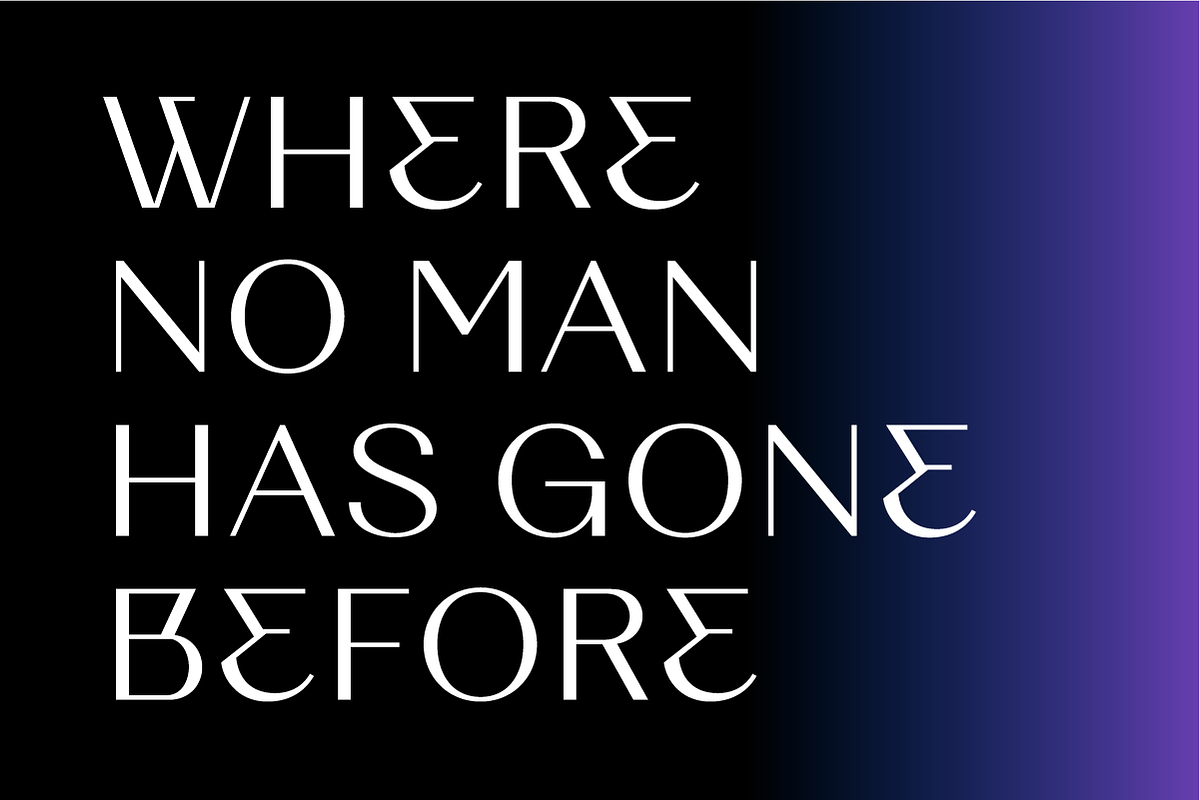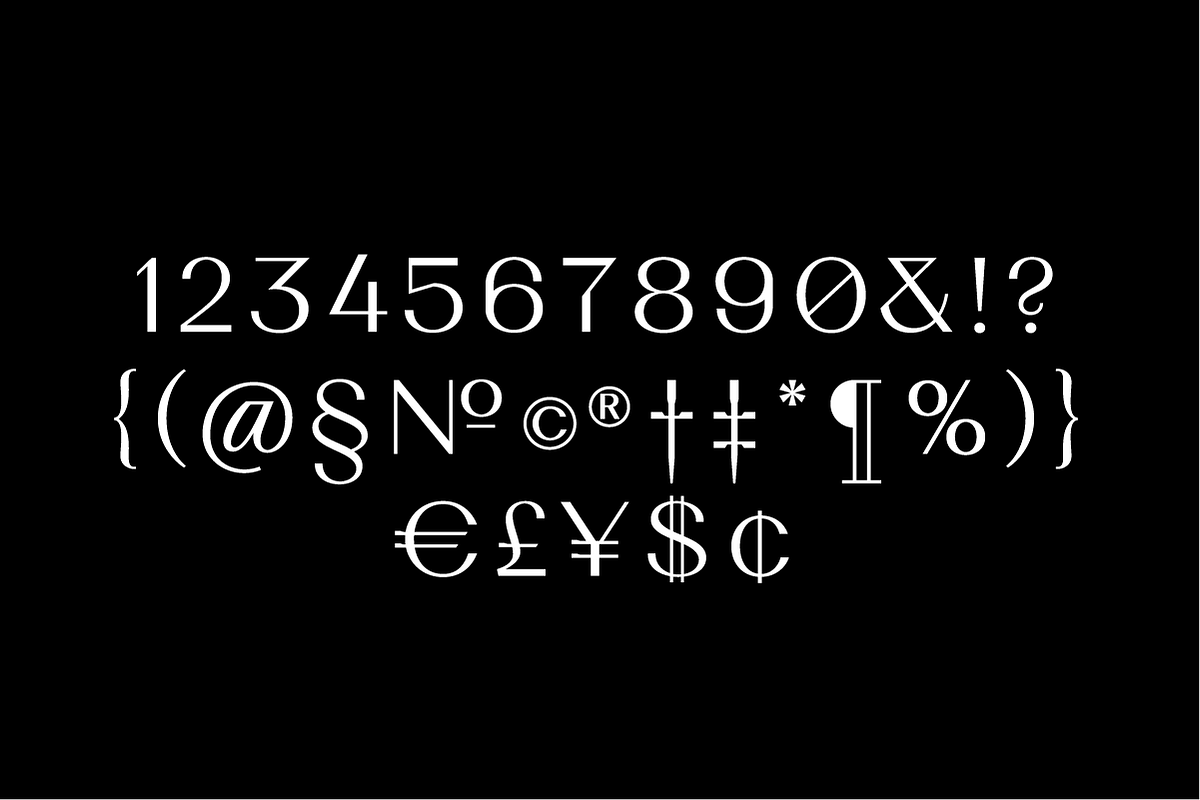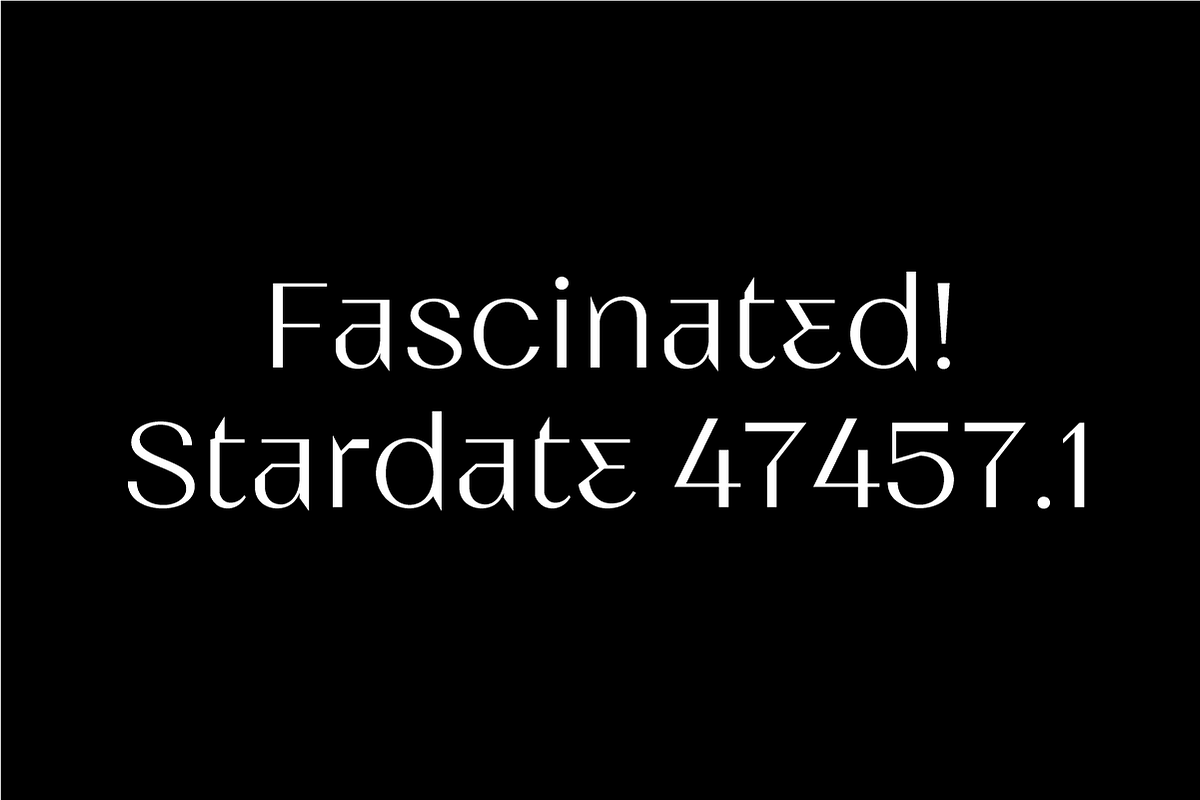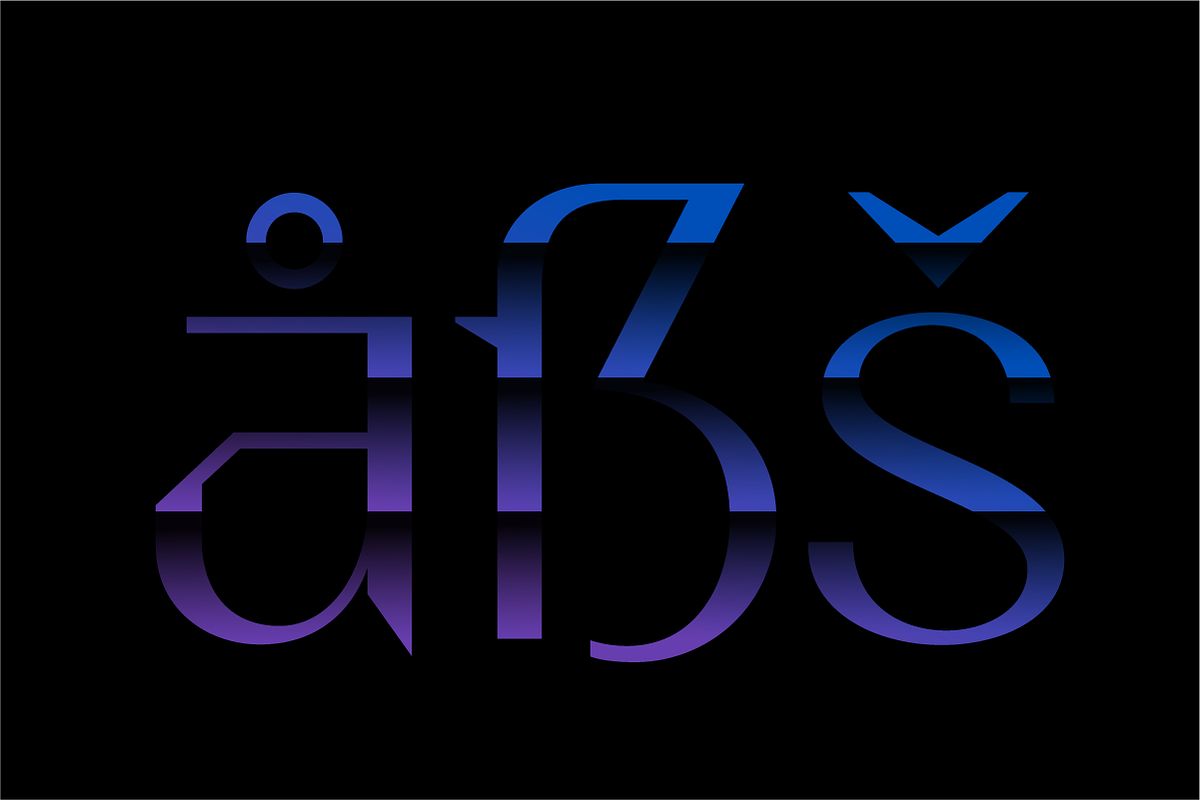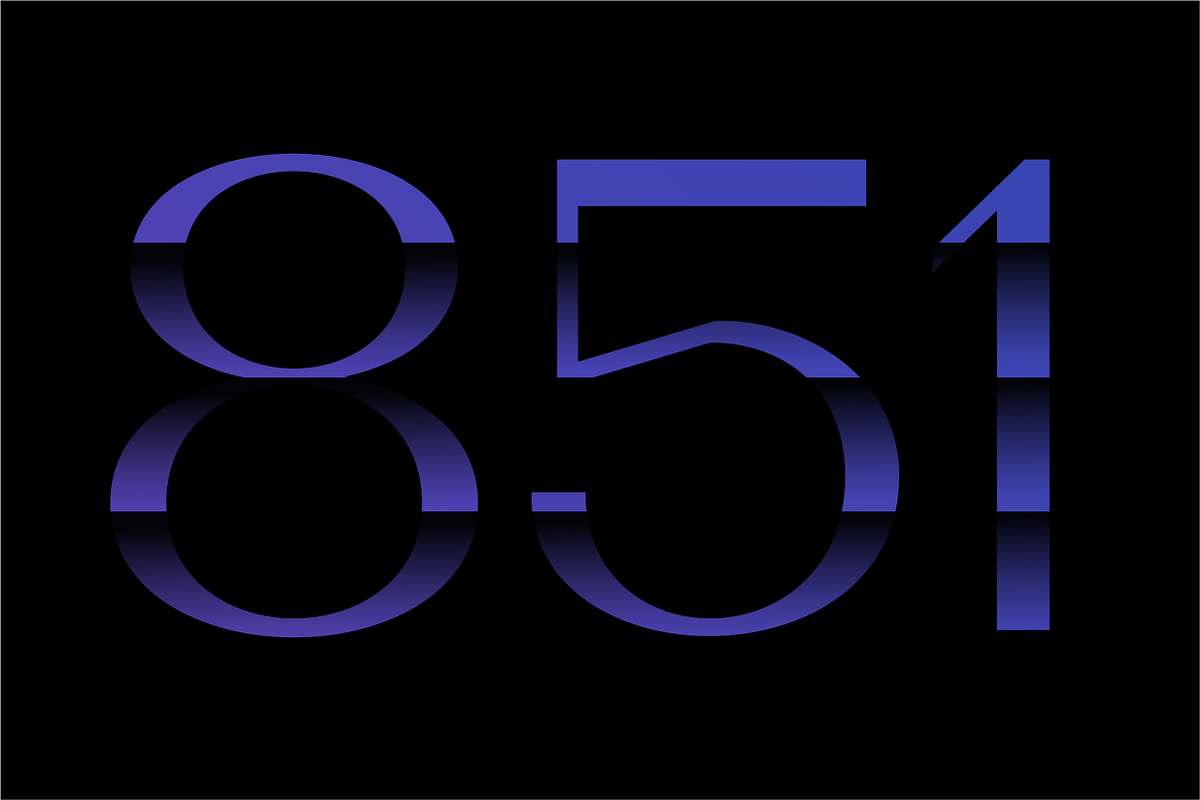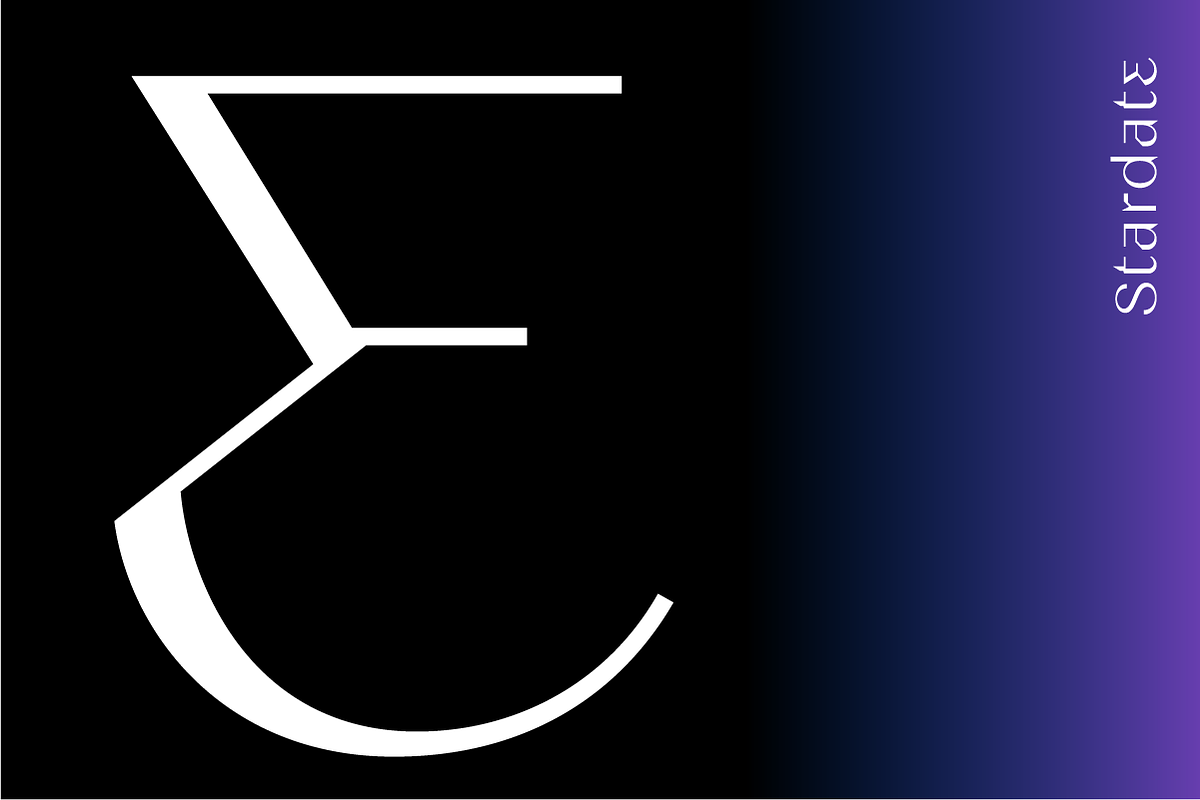
Stardate Typeface
Stardate is a high contrast display sans serif typeface with clean futuristic look.
Stardate Typeface by Yury Veselov fits naturally into Branding, posters, packaging, typography.